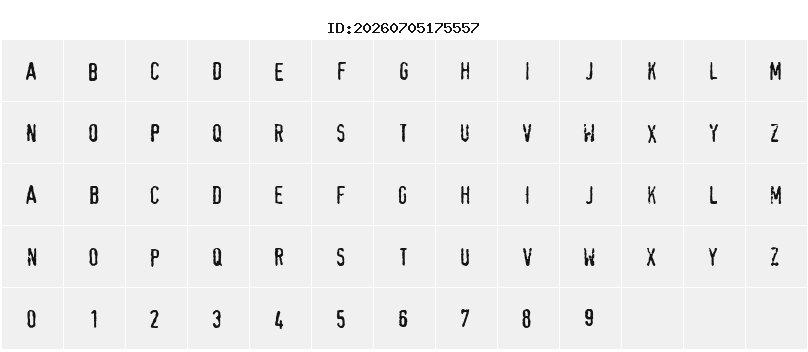
Dole.ttf is a modern, elegant sans-serif font designed for ultimate readability and visual harmony. Perfect for branding, headlines, web design, and print materials.